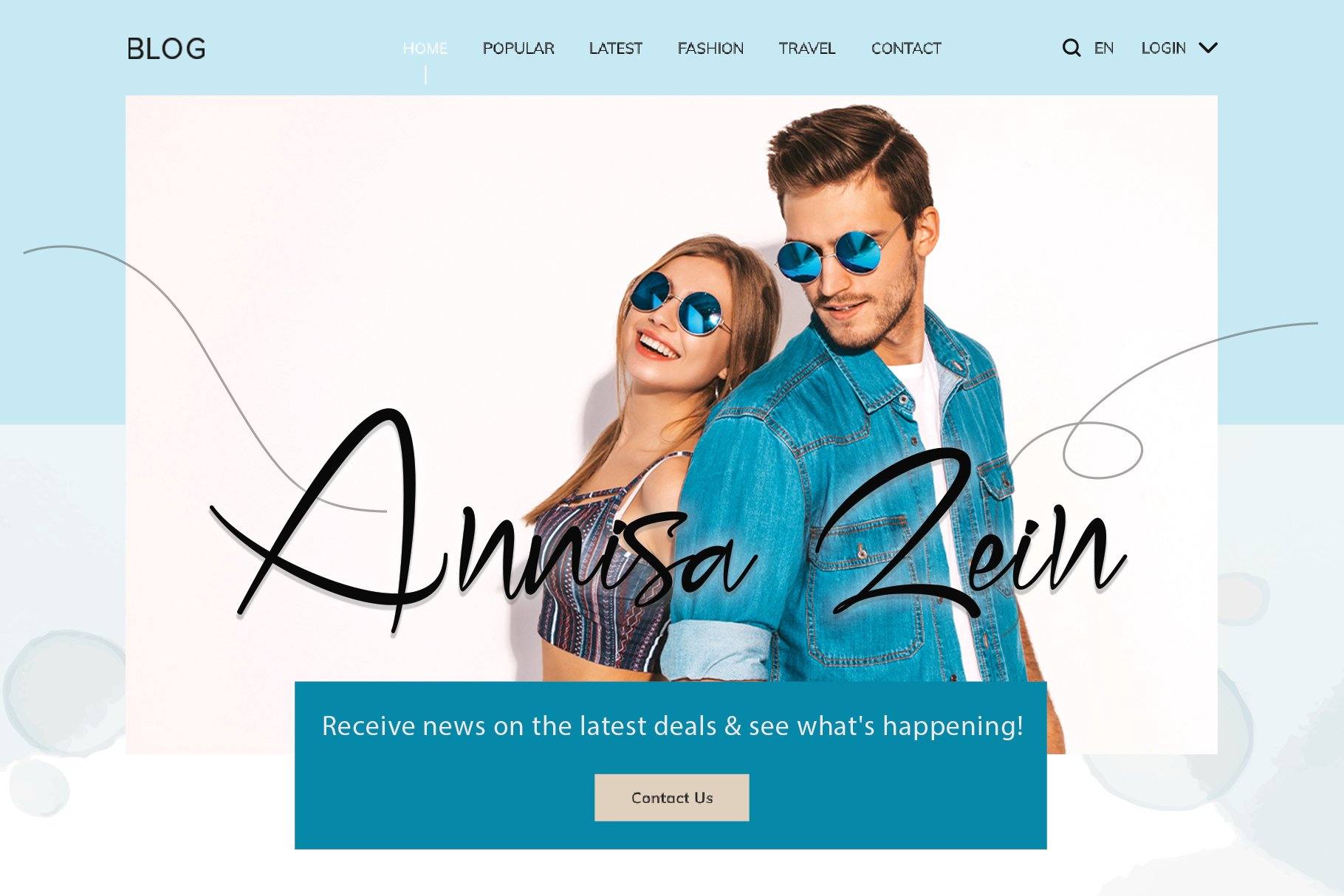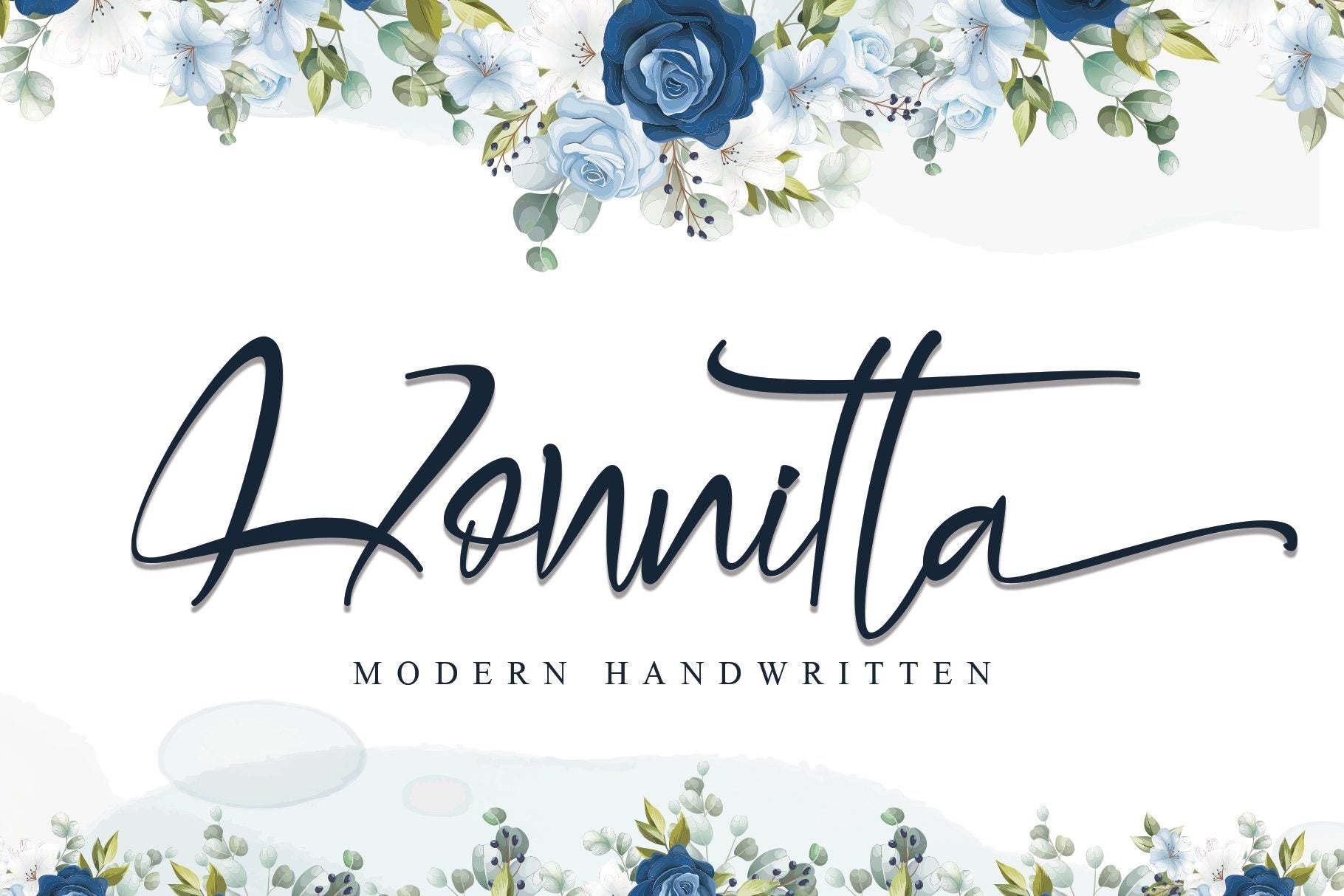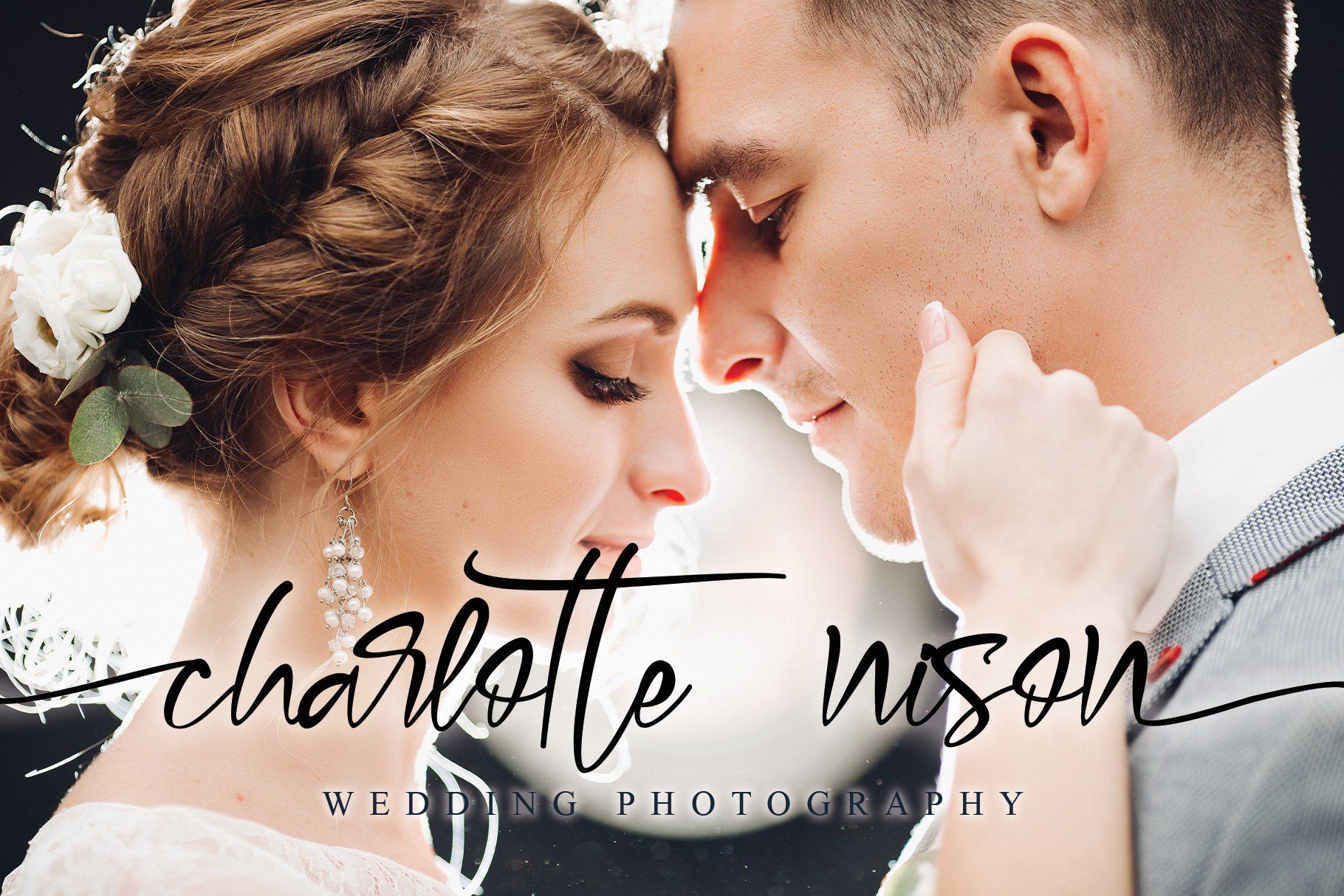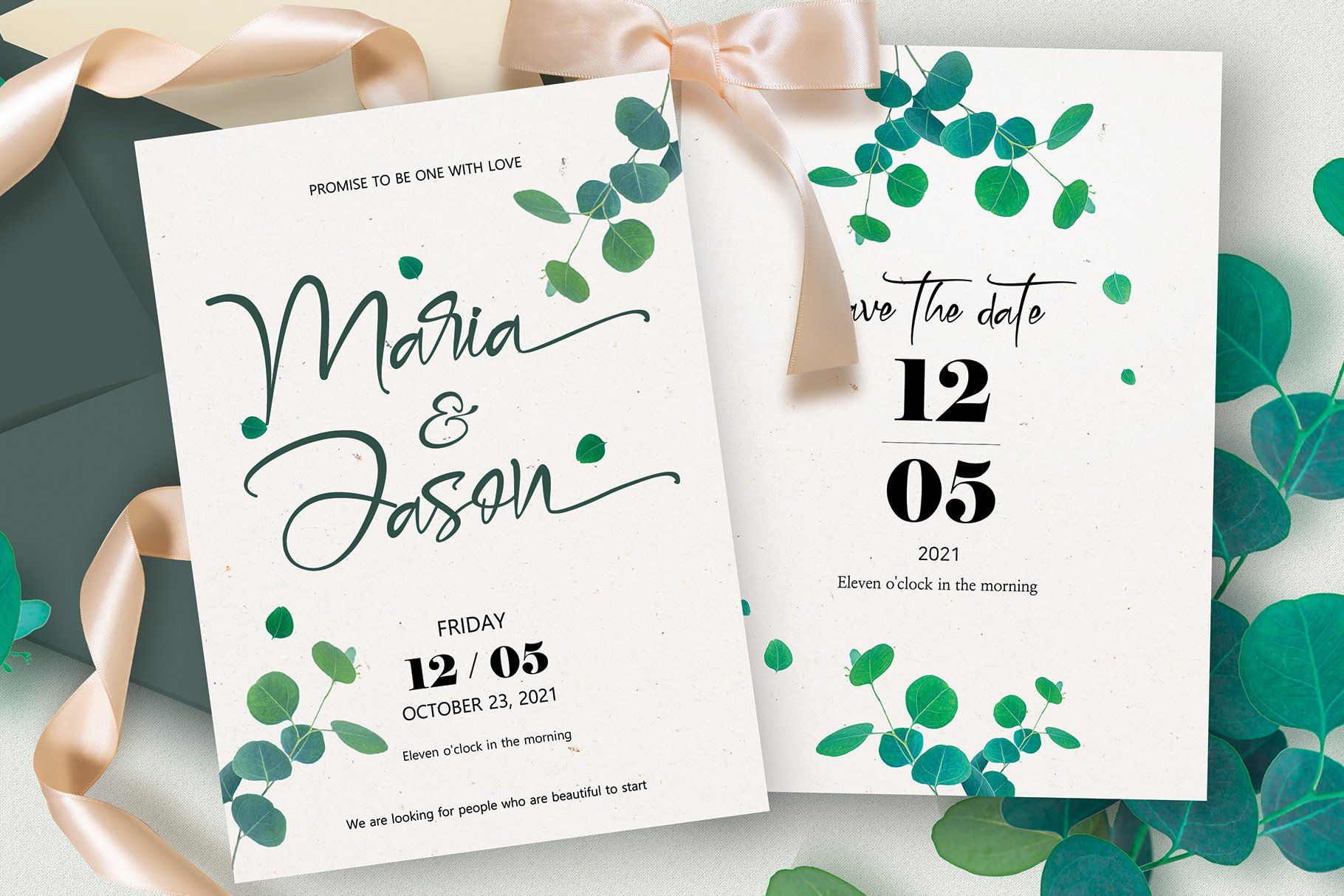
About Honnitta
LIMITED OFFER!!! Honnitta is a handwritten signature script with a modern look. It has good readability and contains lots of glyph’s which give you the chance to give your designs a different look, each time you use Honnitta. Because of its diversity, Honnitta can be used for almost every design. What’s Included : Honnitta (TTF, OTF, WOFF) Honnitta Italic (TTF, OTF, WOFF) Works both on Mac & PC Simple installations Support silhouette Many features: alternate, swash & Ligature Accessible in the Adobe Illustrator, Adobe Photoshop, Adobe InDesign, CorelDraw, even work on Microsoft Word. Support multilingual; ä ö ü Ä Ö Ü ß ¿ ¡ To access the alternate glyphs, you need a program that supports OpenType features such as Adobe Illustrator CS, Adobe Photoshop CC, Adobe Indesign, and CorelDraw. More information about how to access alternate glyphs, check out this link ( http://goo.gl/ZT7PqK ) This font is PUA encoded which means you can access all of the playful glyphs and swashes with ease! It also features a wealth of special features including alternate glyphs and ligatures. To stay up to date for my latest job, follow me and let’s be friends because there will be many promos. PUA encoded = Accessible in the Adobe Illustrator, Adobe Photoshop, Adobe InDesign, even work on Microsoft Word. PUA Encoded Characters – Fully accessible without additional design software. Our other products: BESTSELLER WELLDONE MILEADILA BEAUTIFUL KISSES ANGELIN GAMOS HERTINA JENNIE ANTIKA AURORA BLACK PINK SIGNATURE California Street BESTOWENS FAMILY